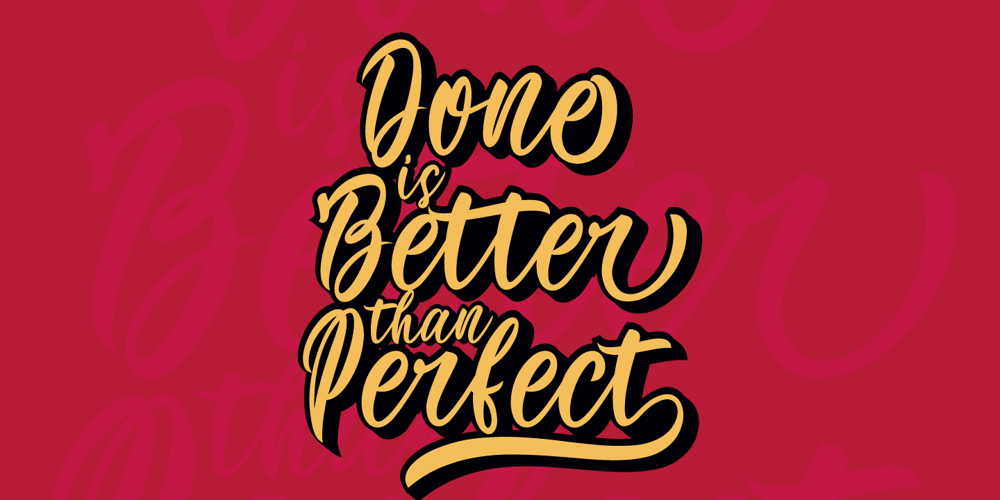
Wonderkids Font Family was designed by Fajriadi and published by Masinong Studio. Wonderkids contains 1 styles and family package options. Wonderkids Script Inspired by Retro style and combination with Hand Lettering style. It is made with personality in every curve. I hope this will inspire your work. It is perfectly paired with marker fonts , and includes a super handy set of bonus Swash. Ideal for logos, handwritten quotes, product packaging, header, poster, merchandise, social media & greeting cards. Features Basic Latin A-Z and a-z Numbers Symbols Stylistic Set Ligature PUA Encode Multi-language Support To enable the OpenType Stylistic alternates, you need a program that supports OpenType features such as Adobe Illustrator CS, Adobe Indesign & CorelDraw X6-X7. There are additional ways to access alternates, using Character Map (Windows), Nexus Font (Windows), Font Book (Mac) or a software program such as PopChar (for Windows and Mac). If you have any question, don’t hesitate to contact me by email masinong.studio@gmail.com ๐